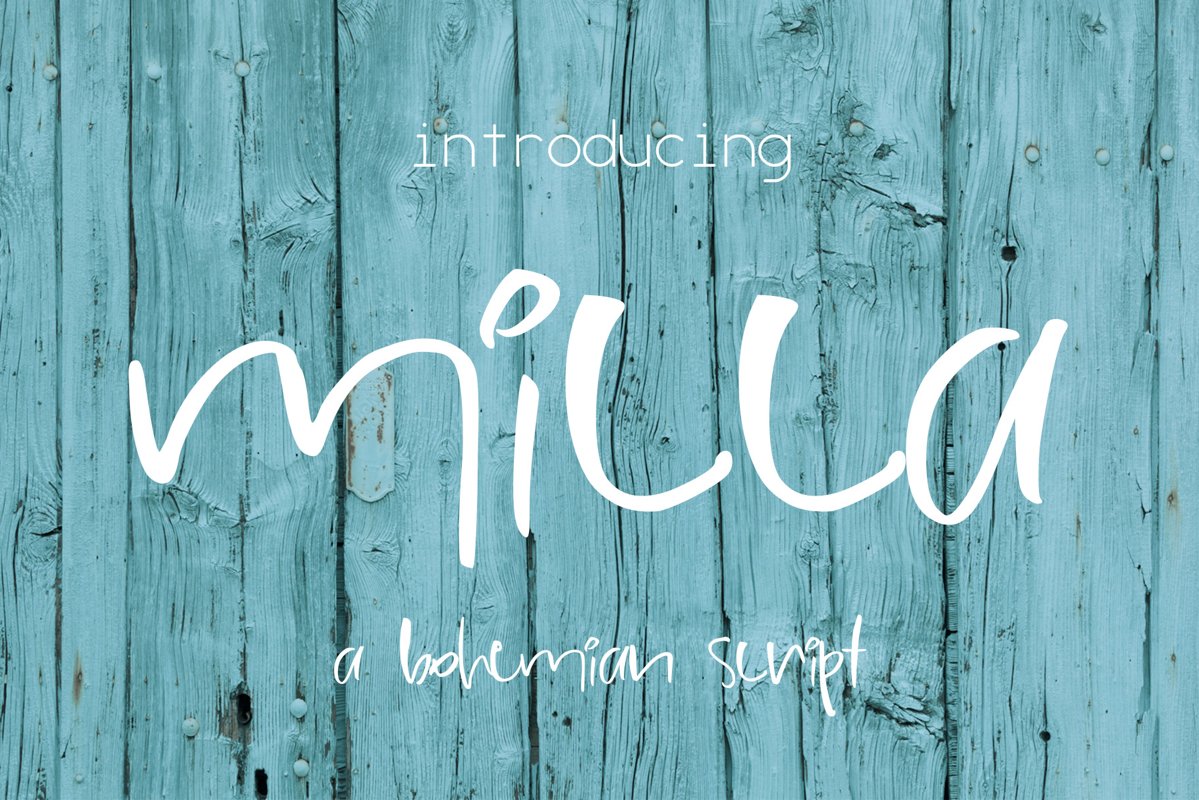
Micca Font
Introducing Micca, a cute bohemian script.?
Perfect for any graphic and logo designs, wedding and birthday invitations.
Micca font contains uppercase & lowercase characters, numbers and punctuations.